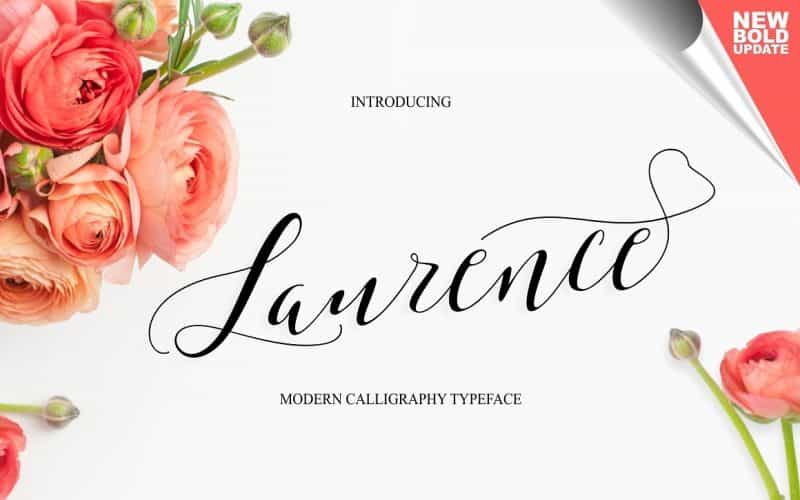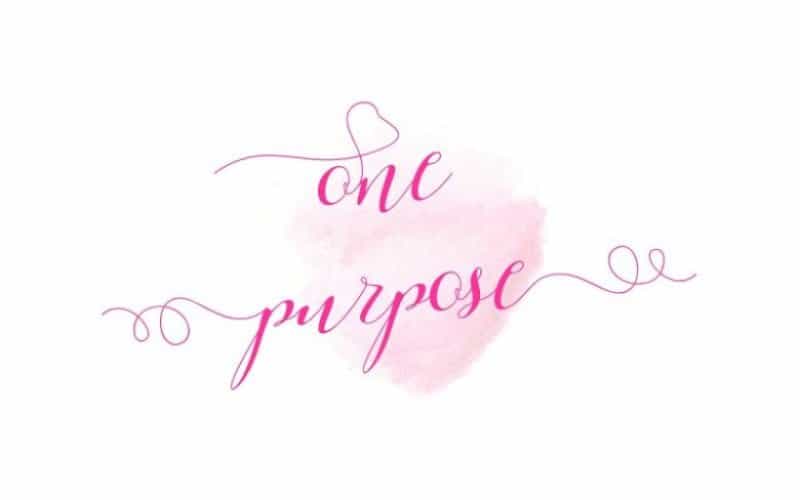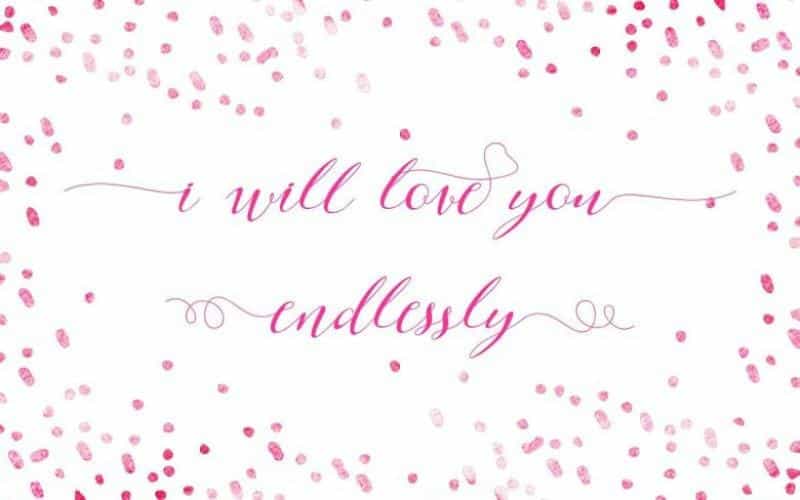
Discover Laurence Calligraphy Font, part of the Calligraphy collection—a versatile and unique font perfect for adding a personal touch to your projects. Download it for free and enjoy crafting designs with style, from invitations to social media posts. This font is available exclusively for personal use, giving you the freedom to create without limits. Unlock your creativity with Laurence Calligraphy Font today!
Laurence Script, in the other hand, handwritten stylish copperplate calligraphy fonts, combines from copperplate to contemporary typeface with a dancing baseline, classic and elegant touch. Can be used for various purposes. such as headings, signature, logos, wedding invitation, t-shirt, letterhead, signage, label, news, posters, badges, etc. We just launch our newest product!